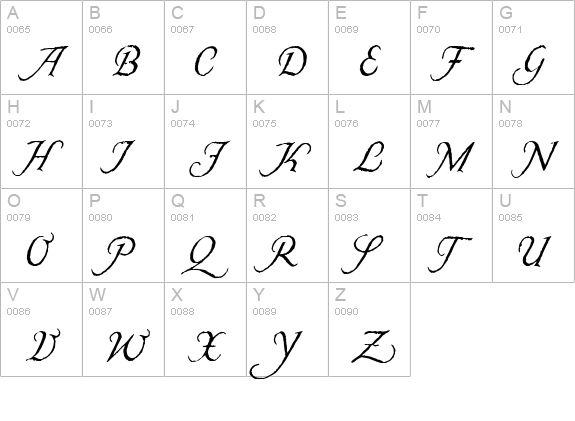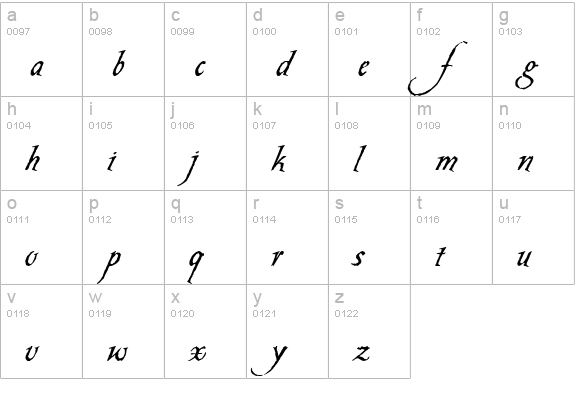
Carmilla Demo font is a stunning display typeface that exudes elegance and sophistication. Its intricate details and ornate flourishes make it perfect for adding a touch of luxury to any design project. With its vintage charm and timeless appeal, Carmilla Demo font is sure to make a statement. Best of all, Carmilla Demo font is completely free to download at FontsMarket.com. Whether you're working on a branding project, wedding invitation, or any other creative endeavor, this font will elevate your designs to the next level. Don't miss out on the opportunity to enhance your work with the beauty and grace of Carmilla Demo font. Download it today and let your creativity shine!